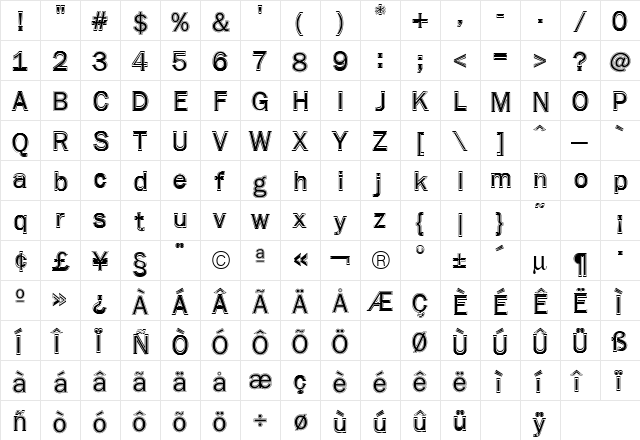
Franklin Gothic Contour Regular
Design Context for Franklin Gothic Contour Typeface
Franklin Gothic Contour takes a clean, functional approach — its unadorned letterforms prioritise legibility and work reliably across screen and print environments.
Font Pairing: Works well alongside a characterful serif or display font that can carry the expressive load while Franklin Gothic Contour handles the functional copy.
Pro Tip: Pair Franklin Gothic Contour with a display or serif font for headlines — its neutral character makes it an excellent supporting player in complex typographic systems.